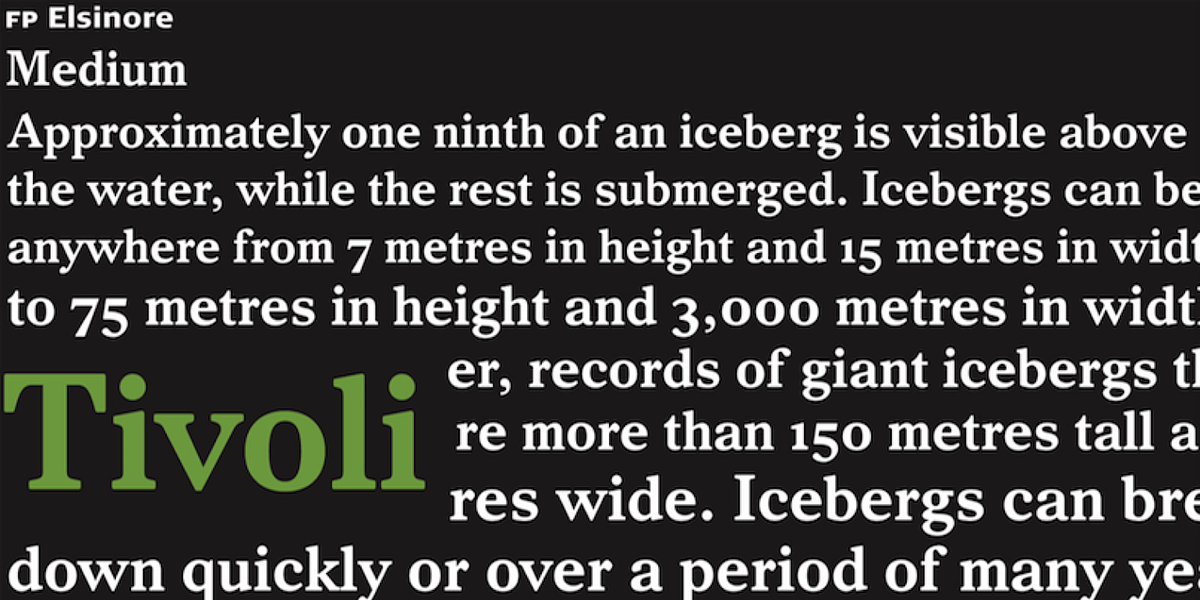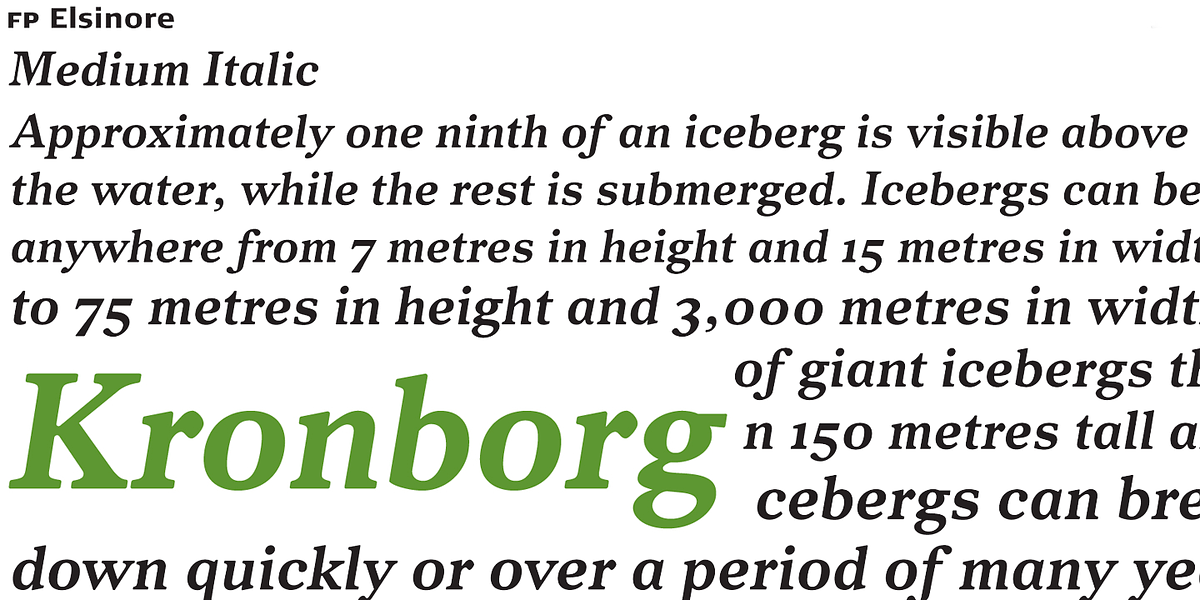
FP Elsinore
FP Elsinore is a classic old style serif font designed specifically for street name signs in the city of Elsinore. Its straightforward design blends harmoniously with the architecture of this historic coastal city. The font features gently rounded corners, a common trait in fonts intended for signage.